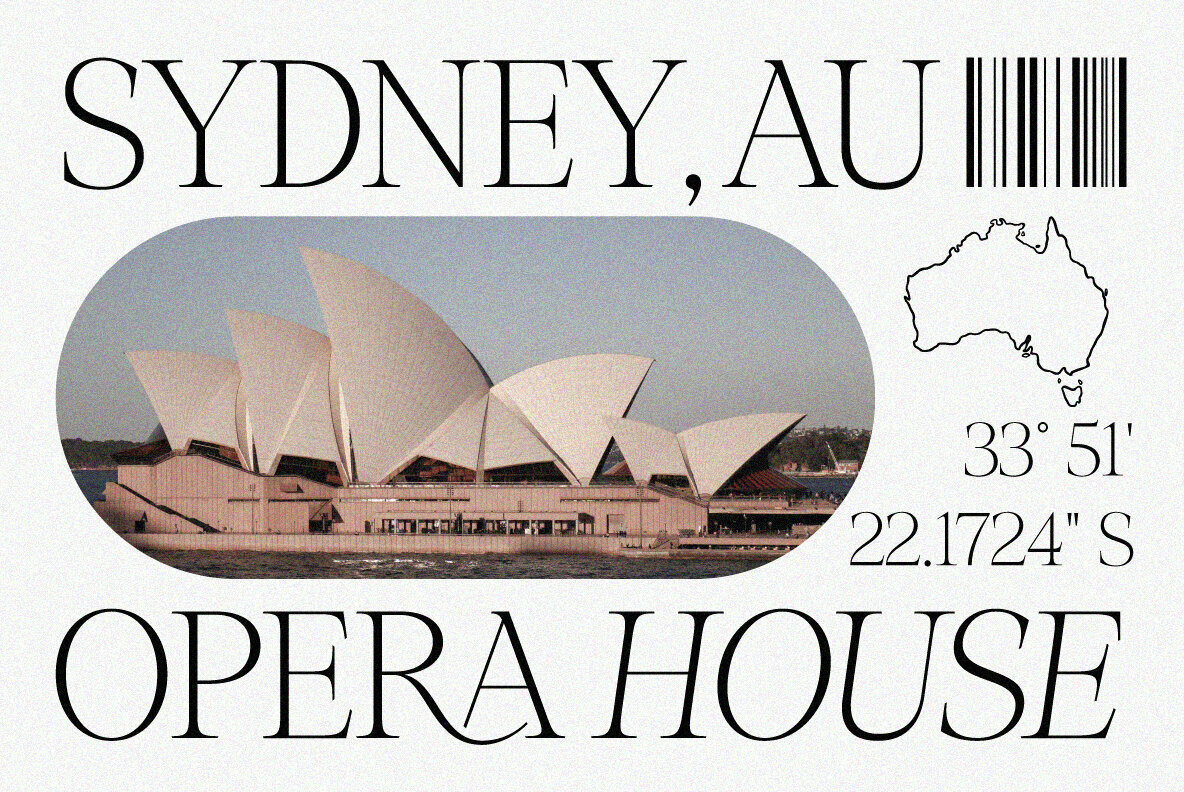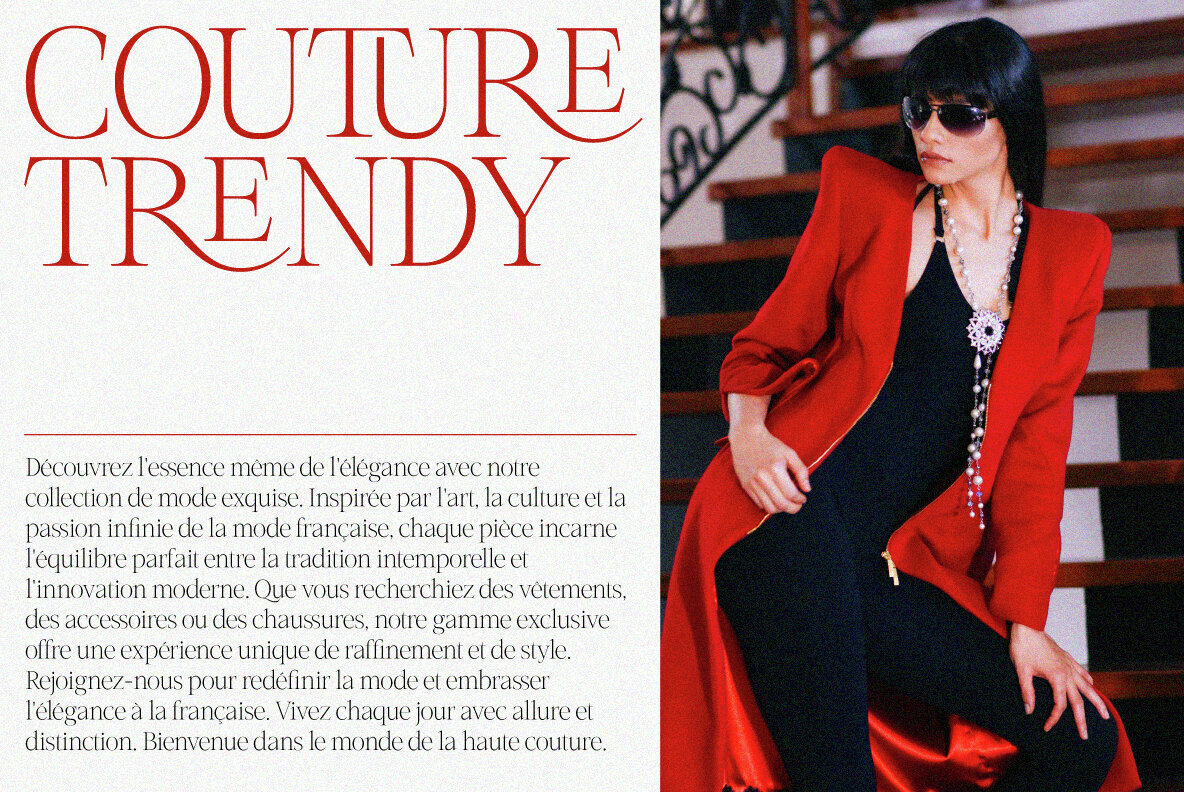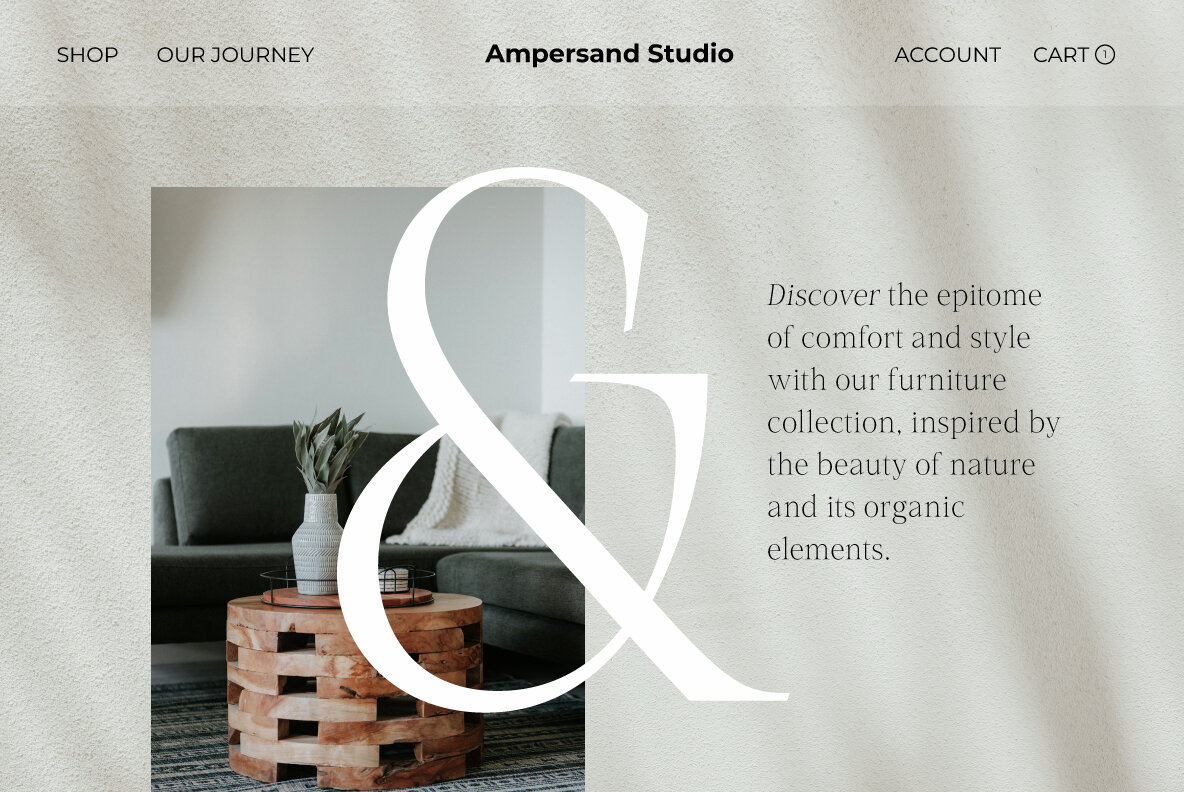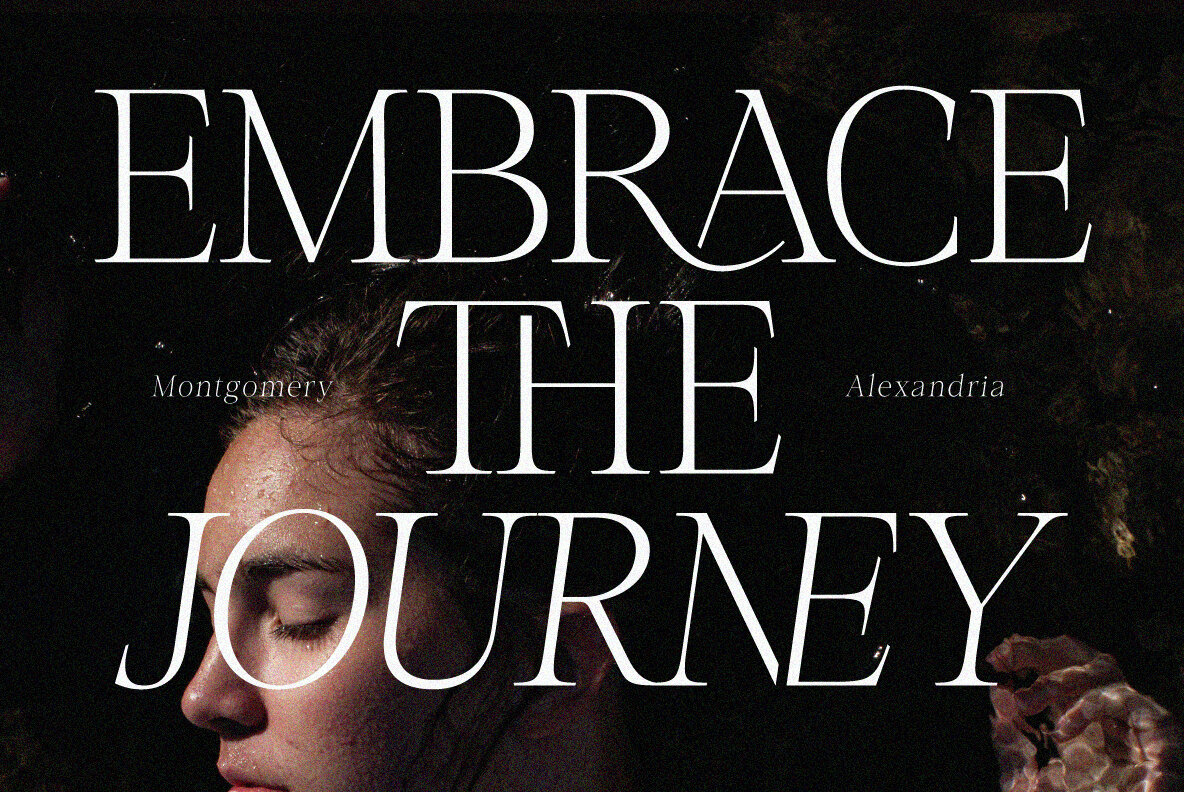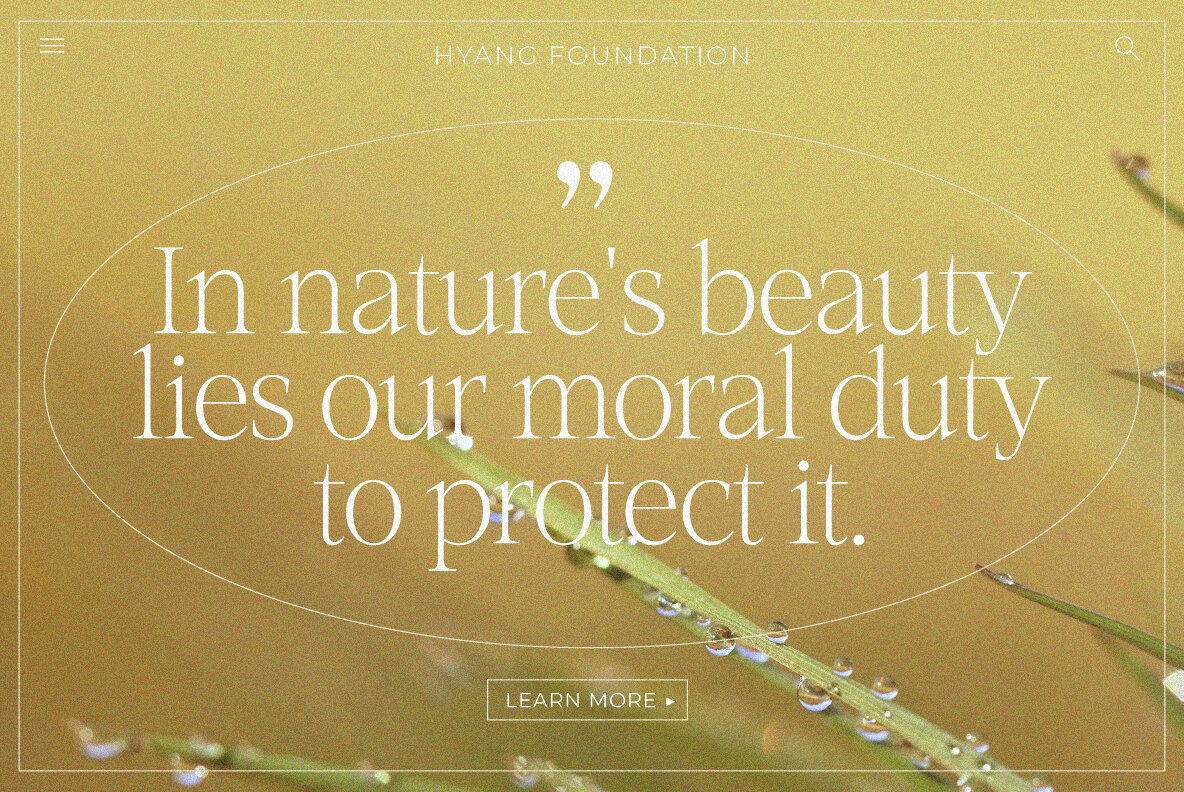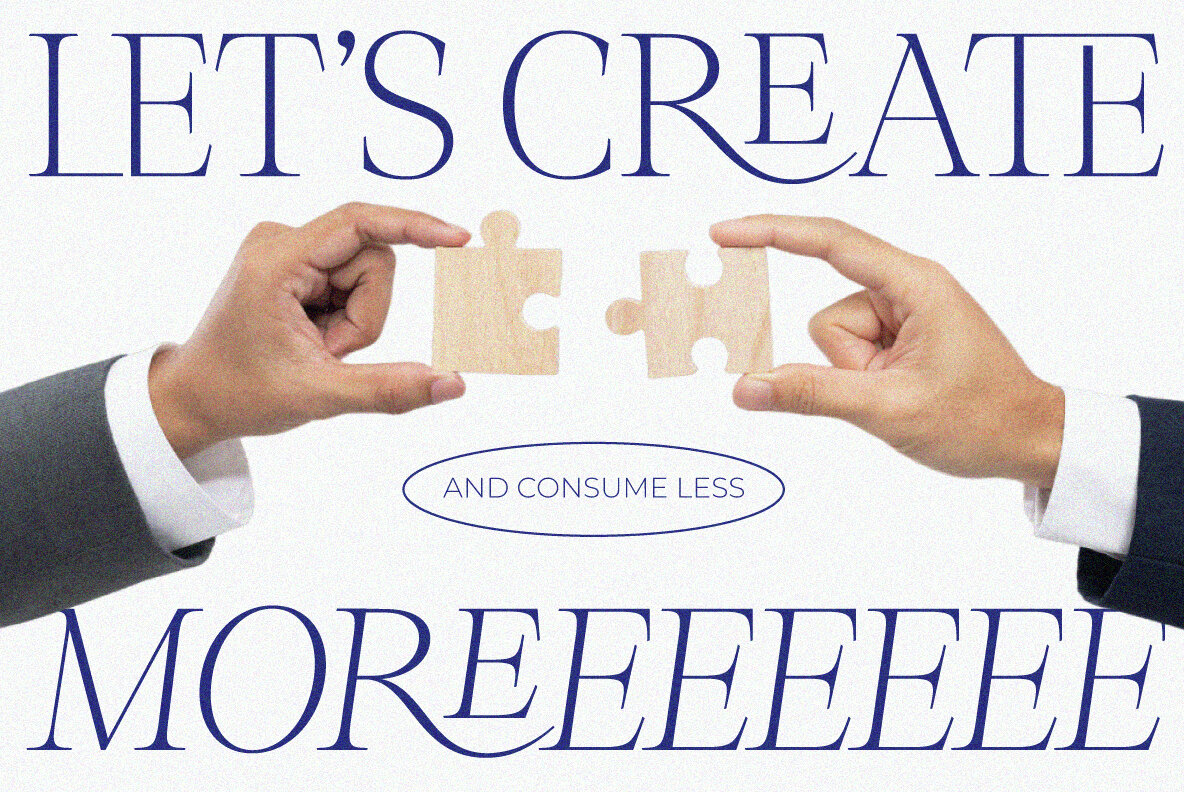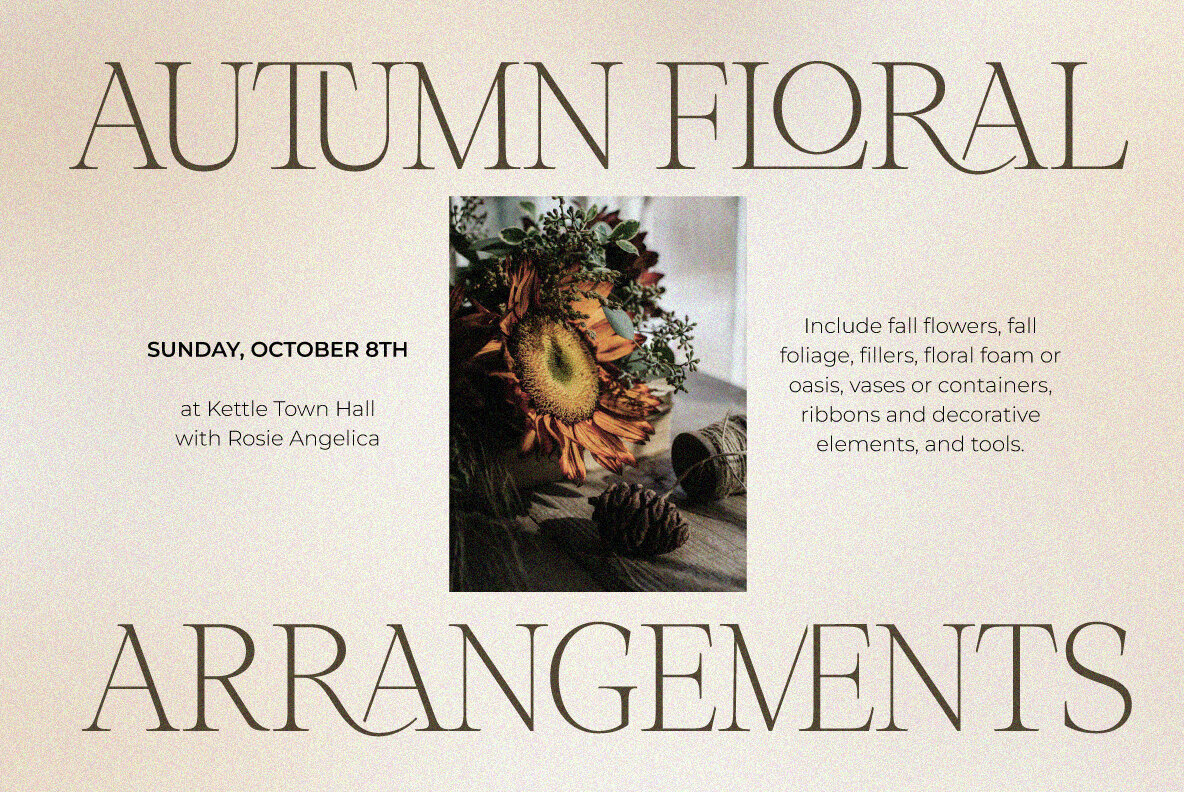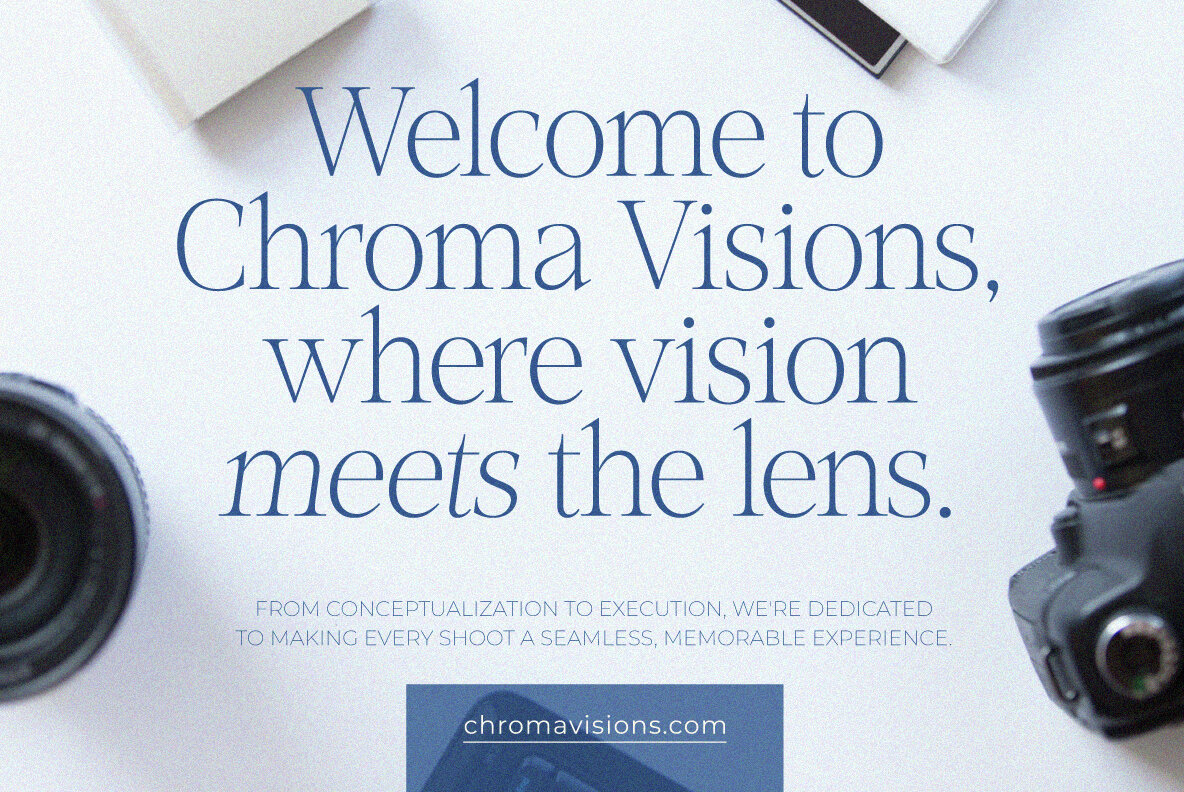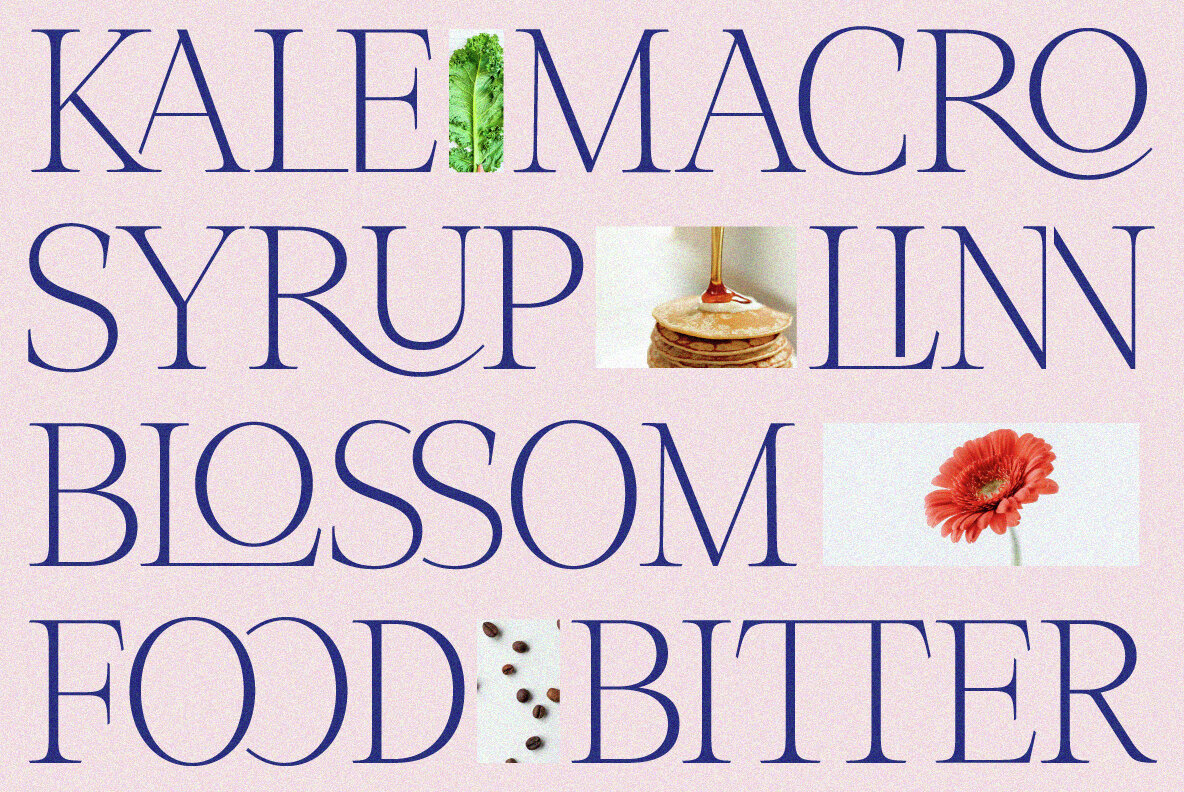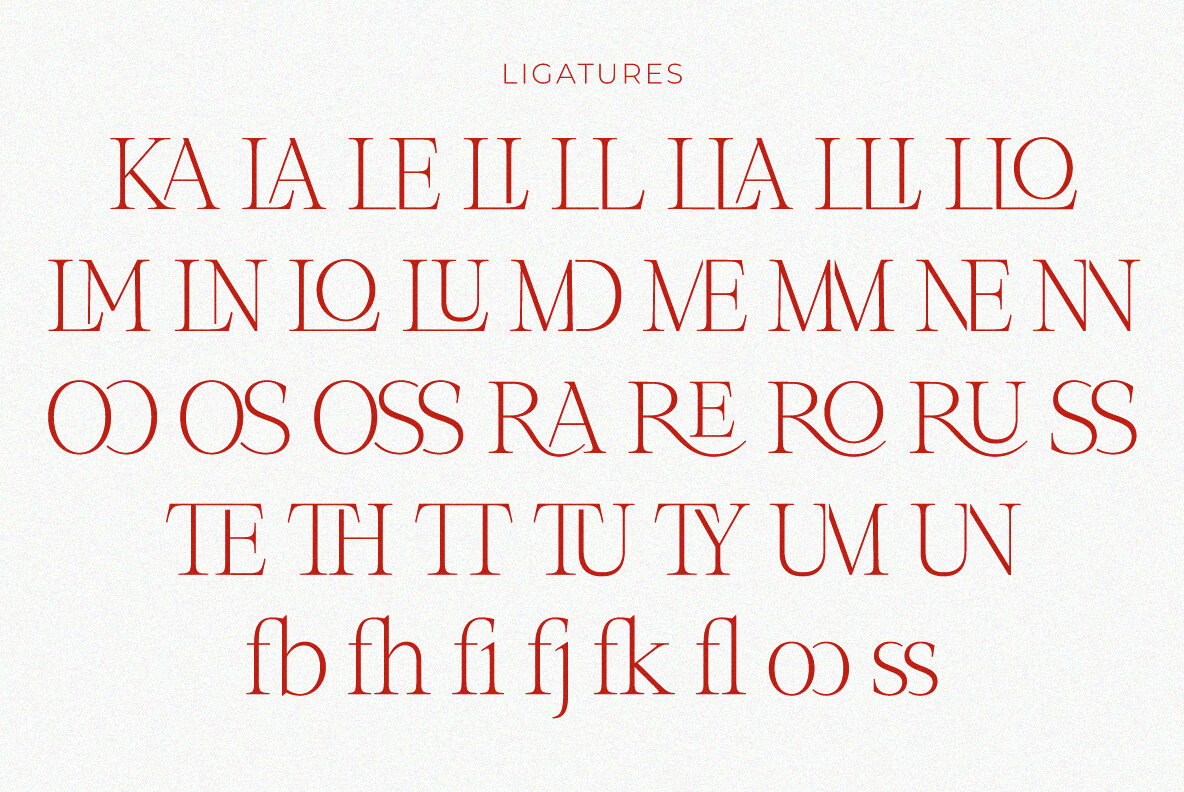
Role Model Font
Role Model is basic contemporary serif that have clean edges to reach modern feel. Designed to be versatile, this font seamlessly fits into diverse design applications, from digital platforms to print materials. It works harmoniously for both body text and headings, making it a versatile choice for modern design projects. Role Model font has a rich ligatures and created in Regular and Oblique styles.Role Model is basic contemporary serif that have clean edges to reach modern feel. Designed to be versatile, this font seamlessly fits into diverse design applications, from digital platforms to print materials. It works harmoniously for both body text and headings, making it a versatile choice for modern design projects. Role Model font has a rich ligatures and created in Regular and Oblique styles.